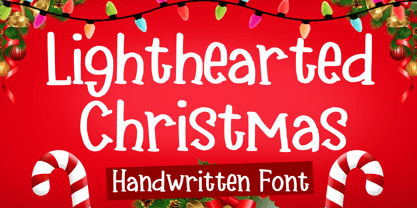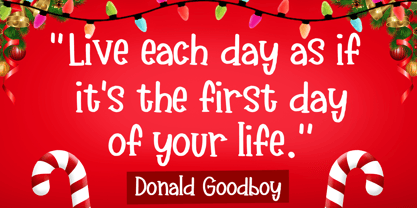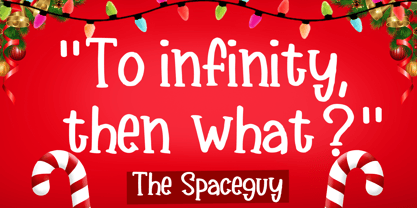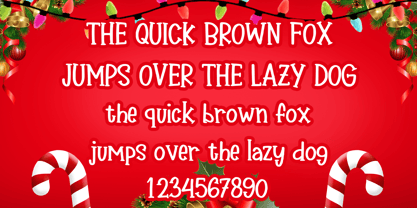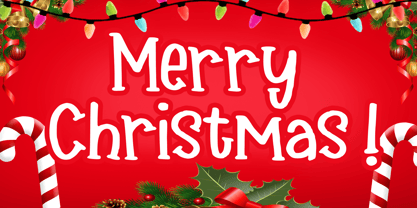
Lighthearted Christmas
by Mvmet
The Lighthearted Christmas Font Family was designed by Gabriel Valentinus and published by Mvmet. Lighthearted Christmas contains 1 styles. More about this family
Lighthearted Christmas is the ideal font for your festive projects! This fun, handwritten typeface brings a joyful spirit to a variety of design applications. Perfect for stickers, t-shirt designs, eye-catching logos, magazine and book covers, comics, cartoon illustrations, daily typing, and much more. With its playful style, this font adds a unique and charming touch to your creative endeavors, making it a must-have for any holiday-themed design.
Designers: Gabriel Valentinus
Foundry: Mvmet